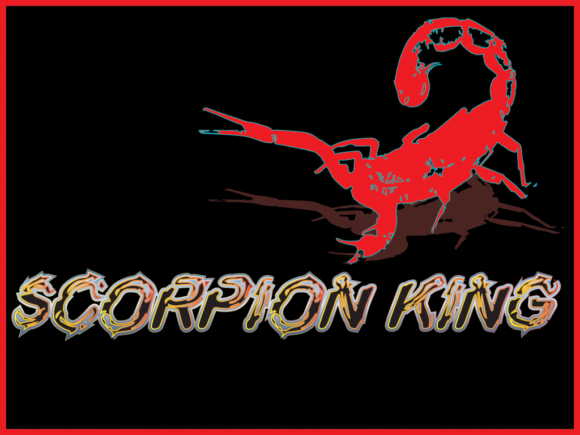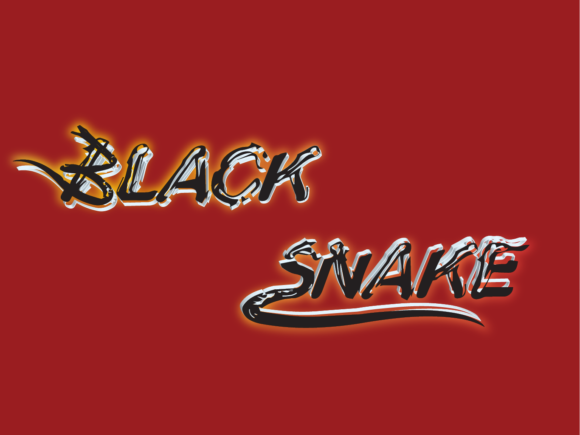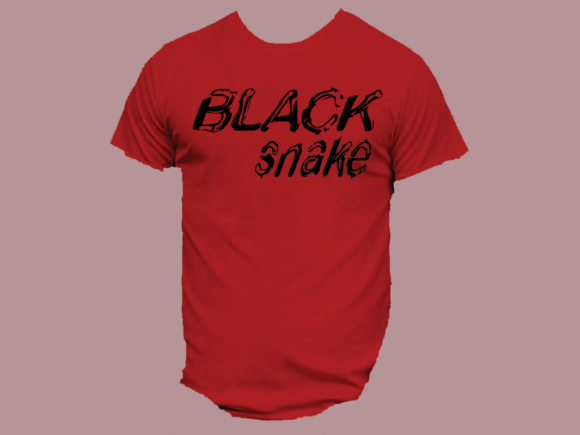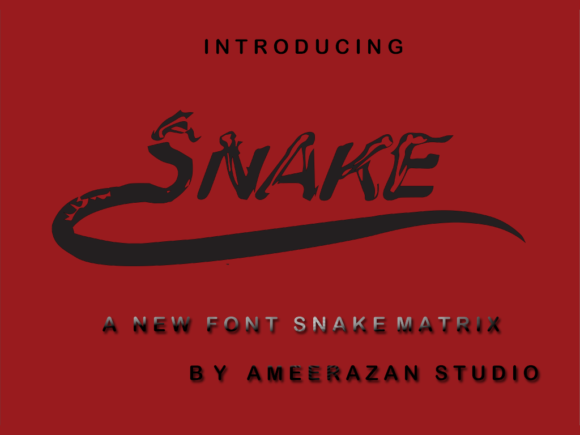
Introduction to Metrix Snake Font
Metrix Snake is a fun and cool handwritten font with a unique charm.
Use it to turn any design project into a true standout .
Key Features of Metrix Snake Font
Why Choose Metrix Snake Font?
Metrix Snake Font offers exceptional quality and versatility, making it a valuable addition to your design toolkit. Whether you’re creating for personal projects or commercial use, Metrix Snake Font delivers professional results.